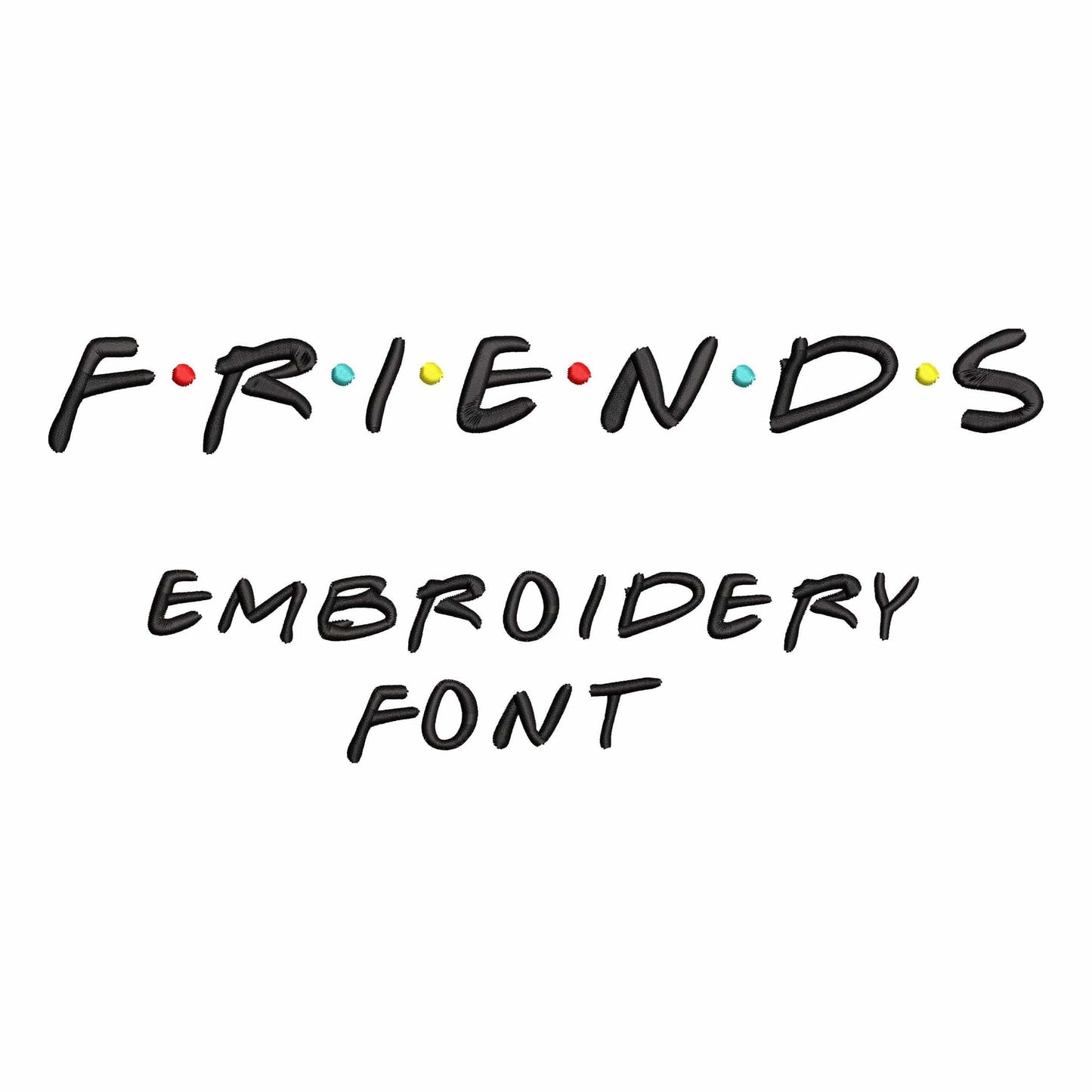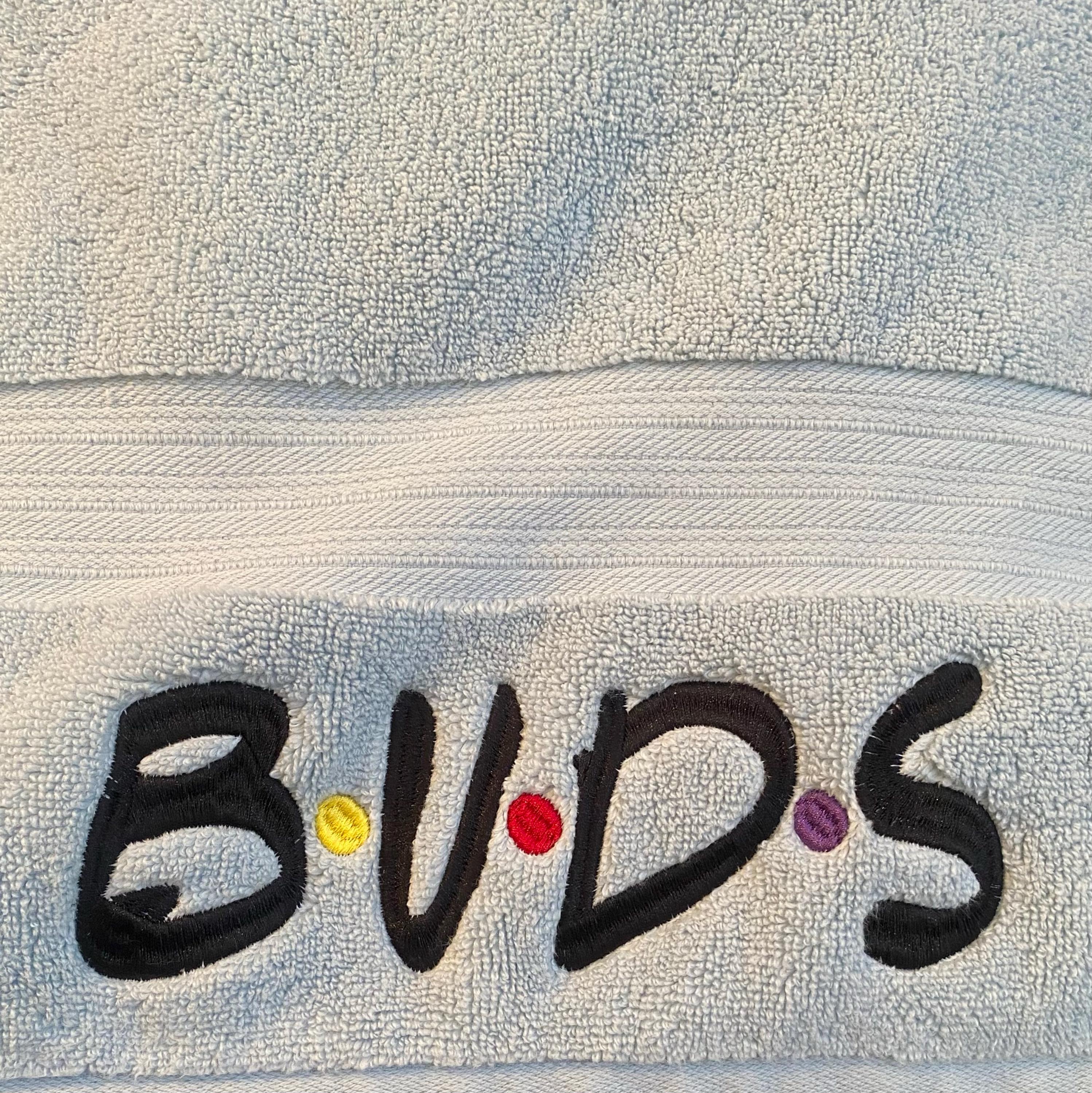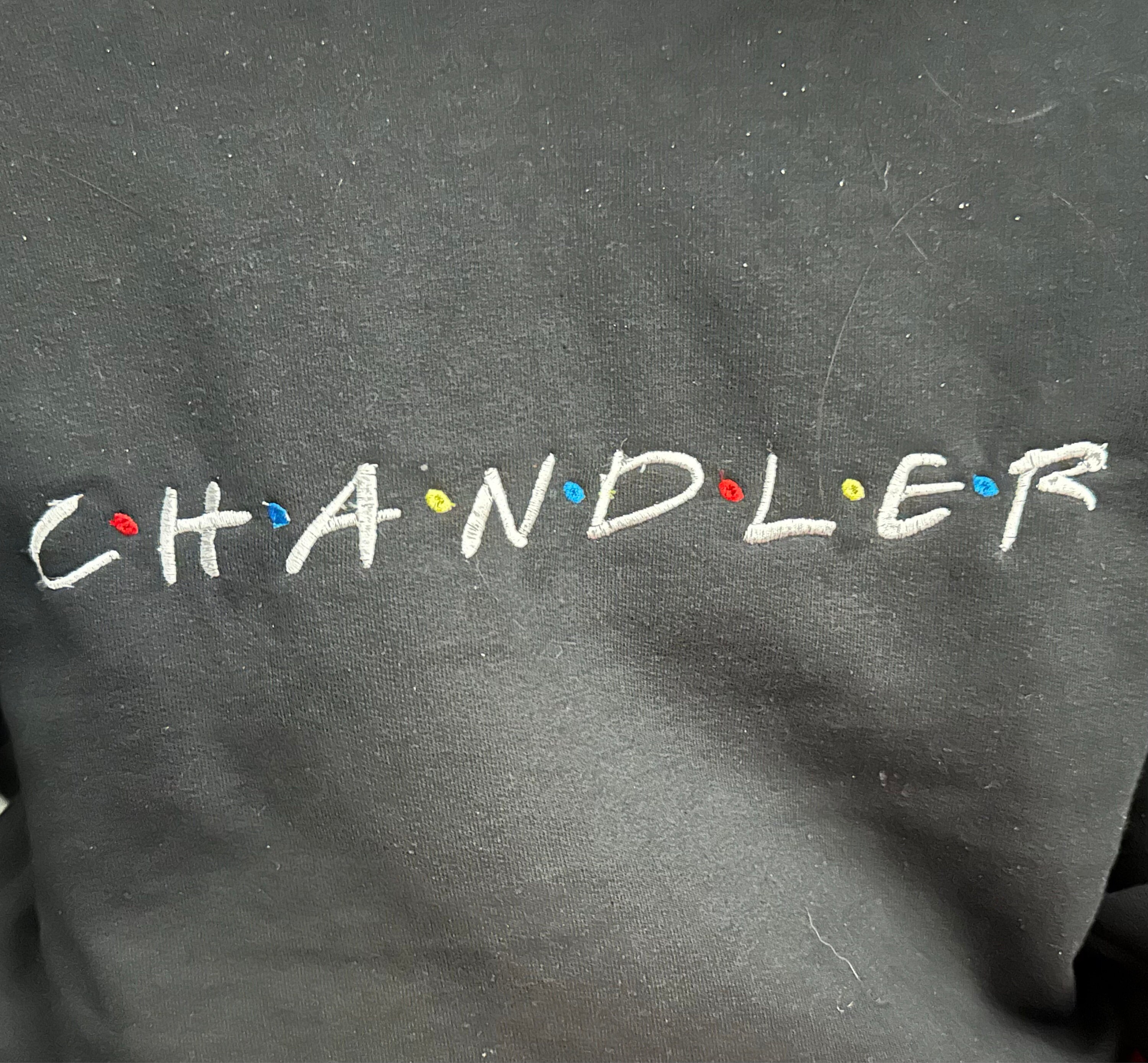
Friends - Embroidery font
• Included: A-Z (uppercase), 0-9, punctuation (.)
This machine embroidery font works well for Christmas shirts, towels, gifts, sweatshirts, and fun seasonal embroidery.